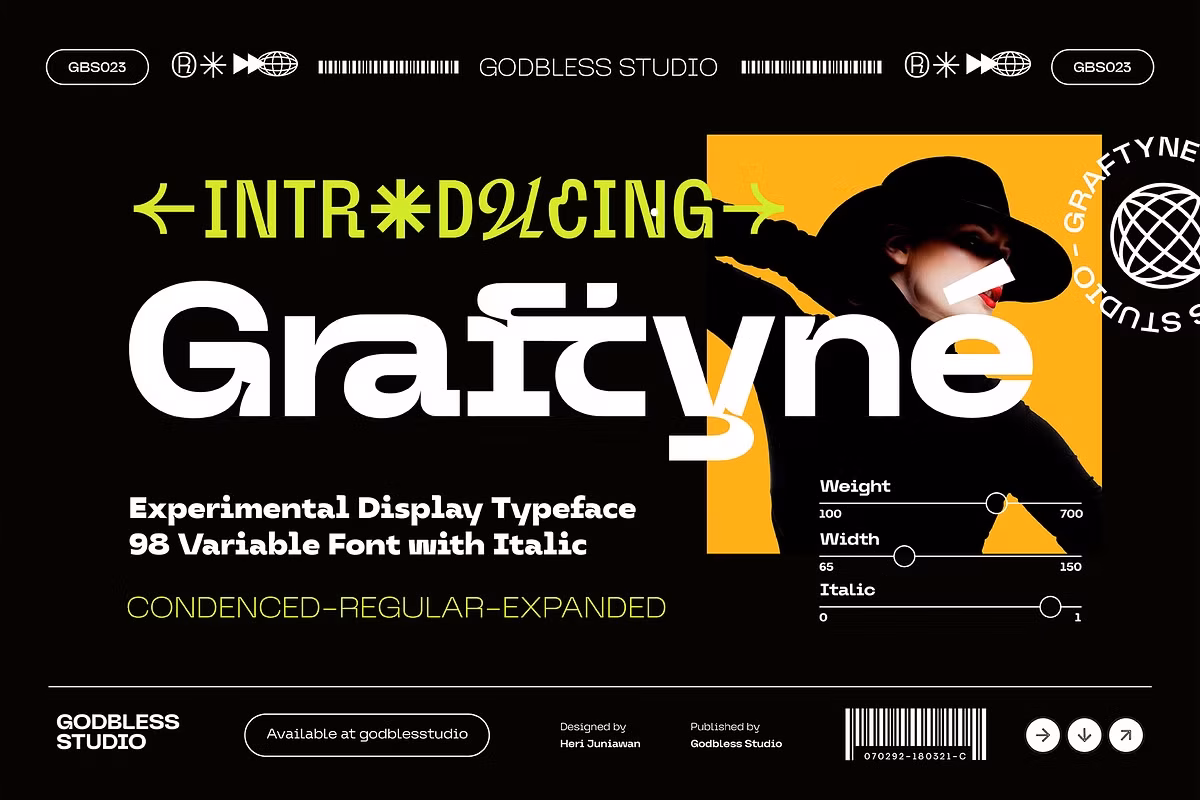
Massive, modern, and masterfully crafted, Graftyne - 98 Fonts Free Download is a powerhouse font family offering an incredible range of styles. With 98 fonts in total—including multiple weights, widths, italics, and stylistic variations—Graftyne is the ultimate choice for designers who need versatility without compromising on quality.
Whether you're working on branding, editorial layouts, website design, advertising, or packaging, Graftyne delivers clean lines, sharp legibility, and sleek modernism. It seamlessly transitions from bold headlines to refined body text, making it a true all-in-one typography solution.